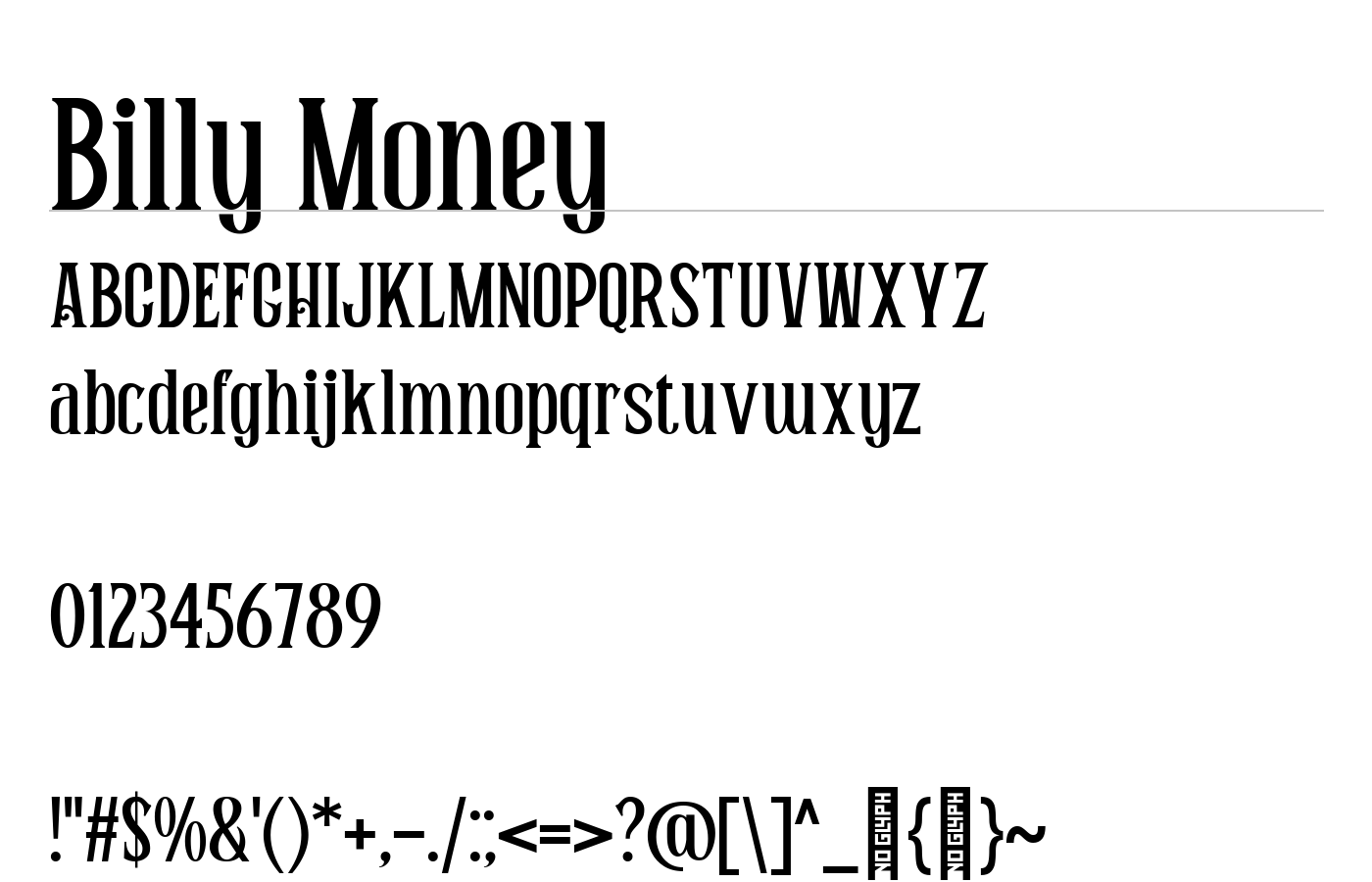
Billy Money is a condensed serif font with a vintage, elegant feel, featuring tall, narrow letterforms with high contrast between thick and thin strokes. Its unique character shapes and sharp serifs make it ideal for eye-catching headlines, logos, and branding that want to convey sophistication with a touch of retro charm. This font works well in fashion, editorial, and luxury packaging where style and distinction are key.
Billy Money Font
About Billy Money Font
| Font family | Billy Money Font |
| Designer | I MADE DWI PUTRA YOGA |